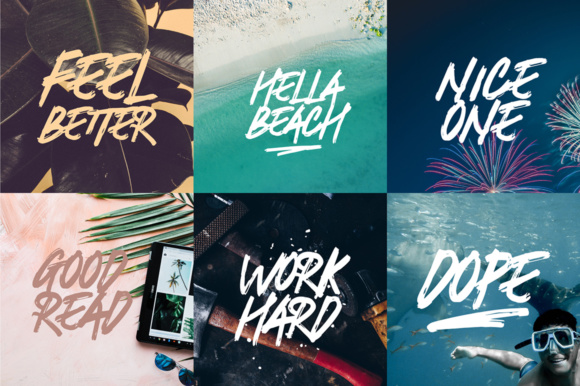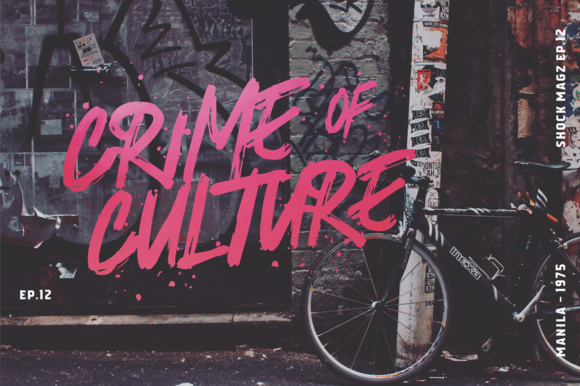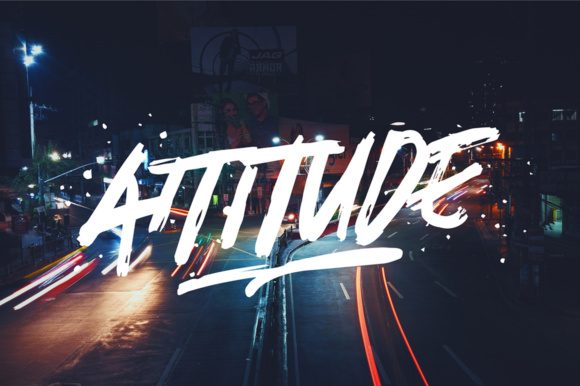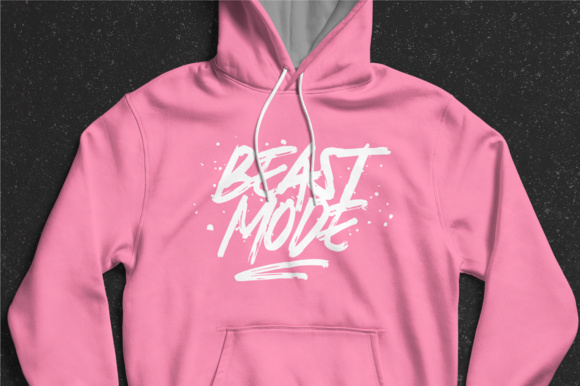
Introducing the Grenade Font: A Bold and Edgy Addition to Your Design Arsenal
Are you tired of using the same old fonts in your designs? Look no further than the Grenade Font, a dry marker brush font that adds a strong, natural, and hand-drawn touch to any project. With its rough and edgy texture, this font is perfect for designers and crafters looking to add a unique and creative flair to their work.
What is the Grenade Font?
The Grenade Font is a carefully crafted font that mimics the look and feel of a dry marker brush. Its bold and expressive strokes are perfect for creating eye-catching headlines, posters, and merchandise. The font’s hand-drawn and rough texture gives it a natural and organic feel, making it ideal for designs that require a personal touch.
Key Features of the Grenade Font
- Dry Marker Brush Texture: The Grenade Font features a unique dry marker brush texture that gives it a rough and edgy feel.
- Hand-Drawn and Natural: The font’s hand-drawn and natural texture makes it perfect for designs that require a personal touch.
- Bold and Expressive: The Grenade Font’s bold and expressive strokes make it ideal for creating eye-catching headlines and posters.
- Versatile: The font is perfect for a wide range of design projects, including t-shirt designs, merchandise, and more.
Uses for the Grenade Font
The Grenade Font is a versatile font that can be used for a wide range of design projects. Here are some ideas to get you started:
- T-Shirt Designs: The Grenade Font is perfect for creating bold and eye-catching t-shirt designs.
- Headlines and Posters: The font’s bold and expressive strokes make it ideal for creating attention-grabbing headlines and posters.
- Merchandise: The Grenade Font is perfect for creating unique and eye-catching merchandise, such as stickers, bags, and more.
- Branding: The font’s hand-drawn and natural texture makes it perfect for branding projects that require a personal touch.
Tips for Using the Grenade Font
Here are some tips for getting the most out of the Grenade Font:
- Experiment with Different Sizes: The Grenade Font looks great in a variety of sizes, from small and subtle to large and bold.
- Play with Color: The font’s dry marker brush texture looks great in a range of colors, from bright and bold to muted and pastel.
- Combine with Other Fonts: The Grenade Font pairs well with a range of other fonts, including sans-serif and script fonts.
- Use for Emphasis: The font’s bold and expressive strokes make it perfect for adding emphasis to key words and phrases.
The Grenade Font is a bold and edgy addition to any design arsenal. With its dry marker brush texture, hand-drawn and natural feel, and bold and expressive strokes, this font is perfect for designers and crafters looking to add a unique and creative flair to their work. Whether you’re creating t-shirt designs, headlines, posters, or merchandise, the Grenade Font is sure to make your designs stand out.